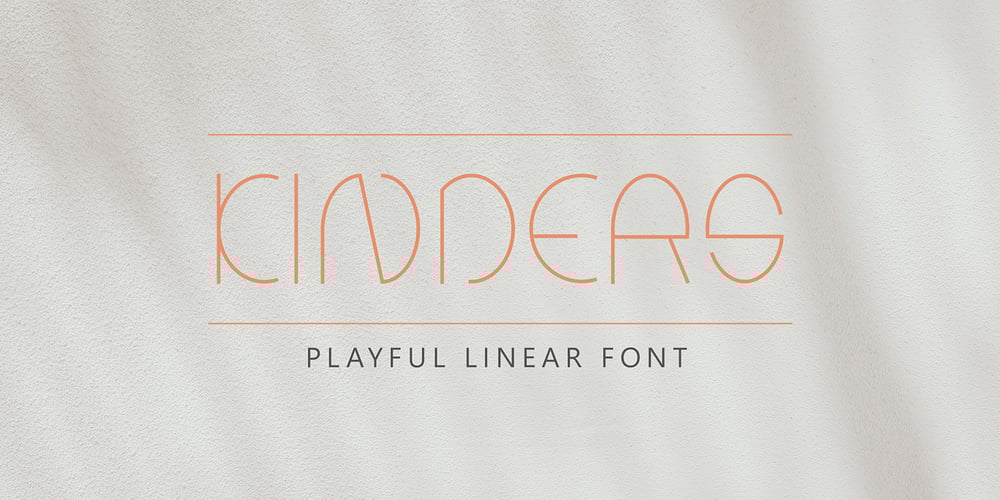
Kinders Font Family was designed by Yahdi Kumala and published by Rometheme. Kinders contains 1 styles and family package options. KINDERS is a Thin Linear typeface with elegant in every single letter. This font looks modern, readable, stylish, catchy and easy to use.KINDERS Font is the best choice for your professional design projects, including : logo, poster design, t-shirt, headline, flyer, cd cover album, quotes, business card, branding, magazines, social media, advertisements, product designs.Highlight:- Easy instalation- Work on PC or Mac- PUA Encoded Support- Basic Latin A-Z and a-z- Numbers- Symbols- No special software is required, The fonts can be opened and used in Adobe Illustrator, Adobe Photoshop, Adobe InDesign, even work on Microsoft Word.